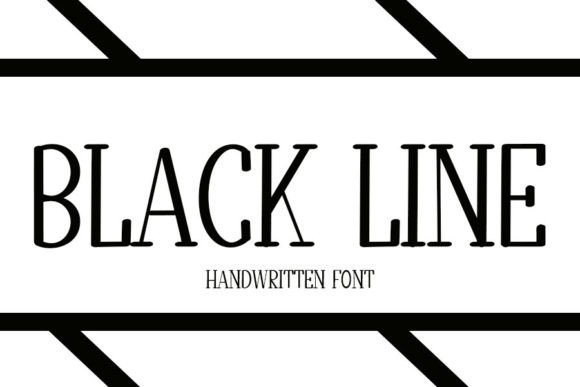
Unlocking the Power of Typography: Discover the Allure of Black Line Font
As a designer, you’ve likely found yourself in the midst of a creative block, staring at a blank page, and searching for that elusive spark to bring your project to life. It’s in these moments that the perfect font can be the difference between a mediocre design and a masterpiece. For me, that spark was ignited when I stumbled upon the Black Line Font – a cool slab serif font with a modern twist and a timeless charm.
Designed to enhance the beauty of your projects, Black Line Font is more than just a font – it’s a key to unlocking the full potential of your creative vision. With its spotless form and balanced lines, this font is a valuable asset for any designer looking to elevate their work. By incorporating Black Line Font into your next project, you’ll be able to add a touch of sophistication and elegance that will leave a lasting impression on your audience.
Black Line Font Key Features
• Unique Characteristics: The Black Line Font features a distinctive, bold, and modern aesthetic with clean lines and geometric shapes, making it ideal for use in graphic design, branding, and advertising.
• Legibility: The font is designed to be highly legible, even at small font sizes, ensuring that the text remains clear and readable across various contexts.
Black Line Font Review
I’ve been experimenting with the Black Line Font for a while now, and here’s my honest take.
First off, I love the modern aesthetic of Black Line Font. It’s sleek, sophisticated, and perfect for minimalist designs. The font is well-suited for titles, headings, and any other element where you want to add a touch of elegance.
• Modern and sleek design
• Perfect for minimalist designs
• Well-suited for titles and headings
While I appreciate the simplicity of Black Line Font, I do think it’s a bit too plain for some designs. It lacks the character and personality that some fonts bring to the table. Additionally, the font may not be as readable in smaller sizes, which could be a concern for some designers.
• Lacks character and personality
• May not be readable in smaller sizes
Overall, I think Black Line Font is a solid choice for designers who want a clean and modern look. While it may not be the most exciting font out there, it gets the job done. With a bit of creativity and experimentation, I think designers can make the most of this font.
Practical Application Guide for Black Line Font
Tips for Getting the Most Out of Black Line Font
Experiment with different font sizes and styles to achieve the desired effect. Use bold, black lines to create a striking visual impact, and use thinner lines for more subtle designs. You can also combine Black Line Font with other design elements, such as shapes and icons, to create visually appealing compositions.
Black Line Font is ideal for creating bold, eye-catching headlines and titles. It’s also great for creating simple, modern designs, such as social media graphics and business cards. Use it to add a touch of sophistication and elegance to your designs, and to create a sense of professionalism and authority.